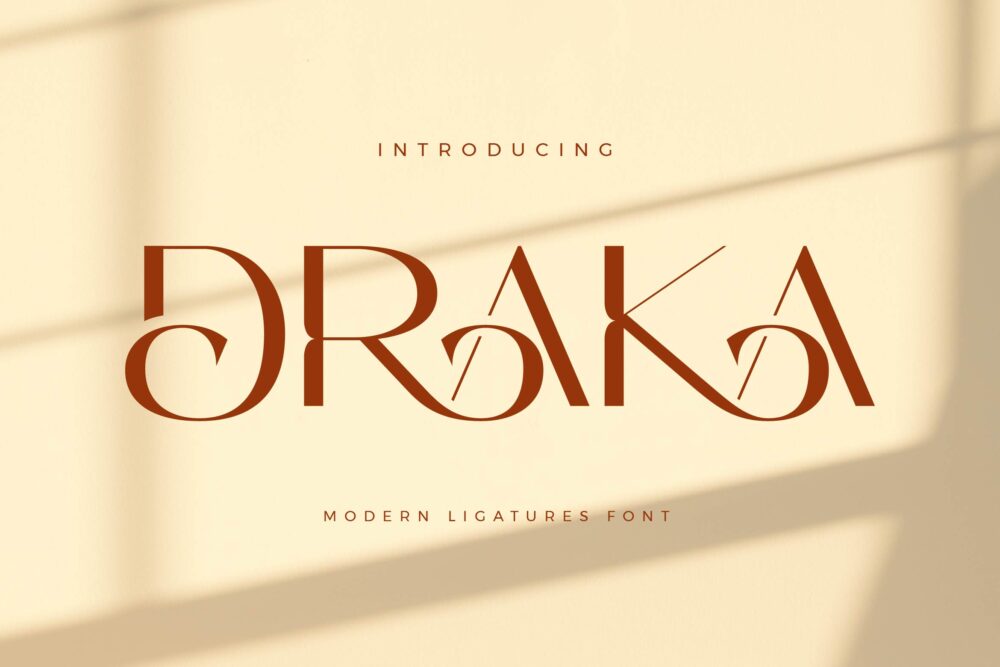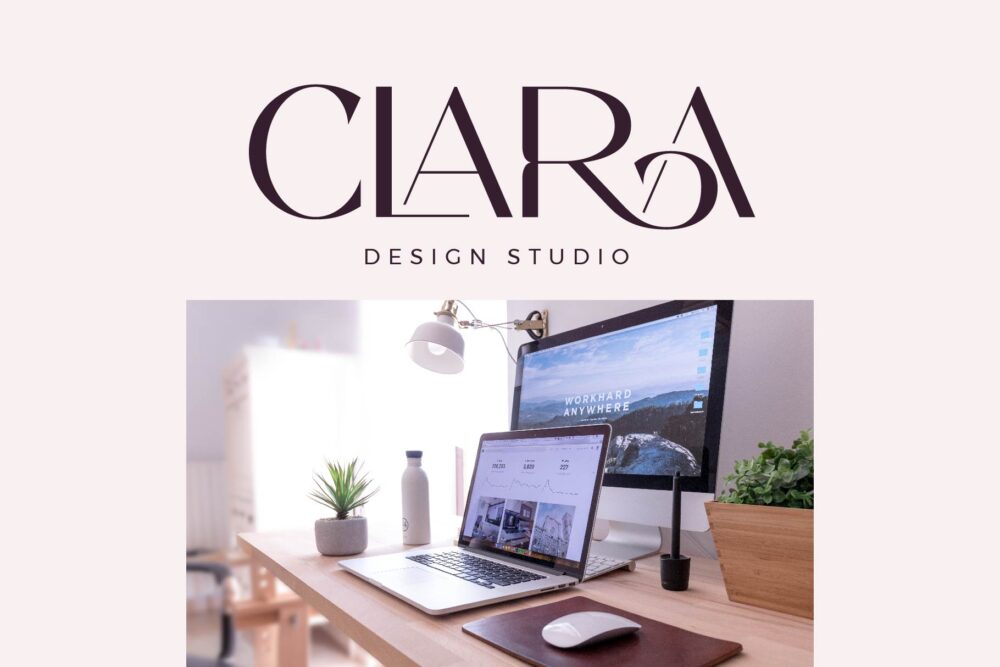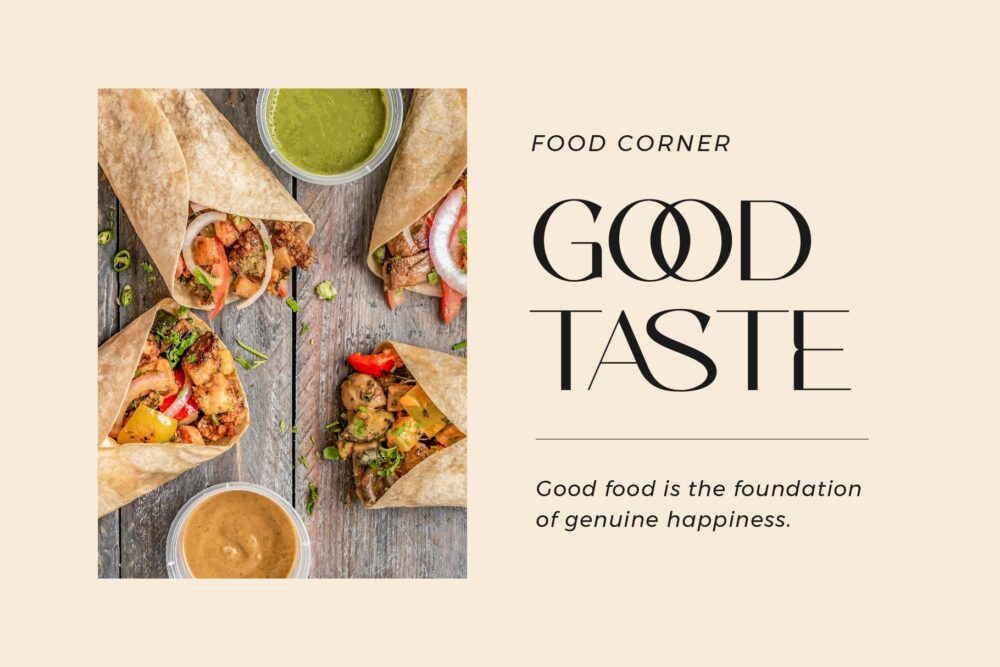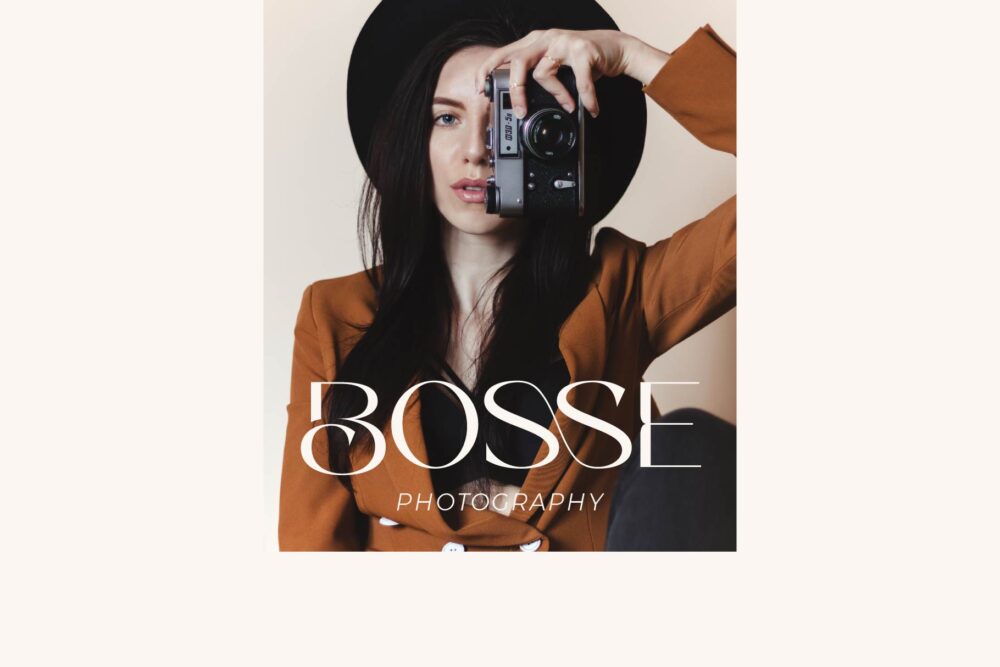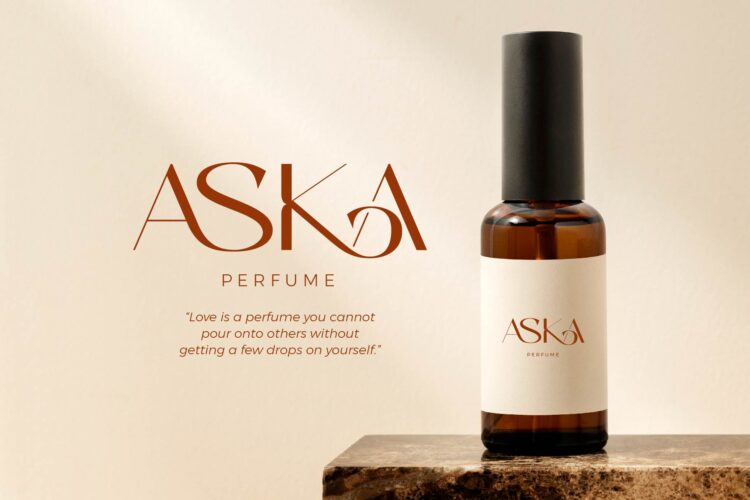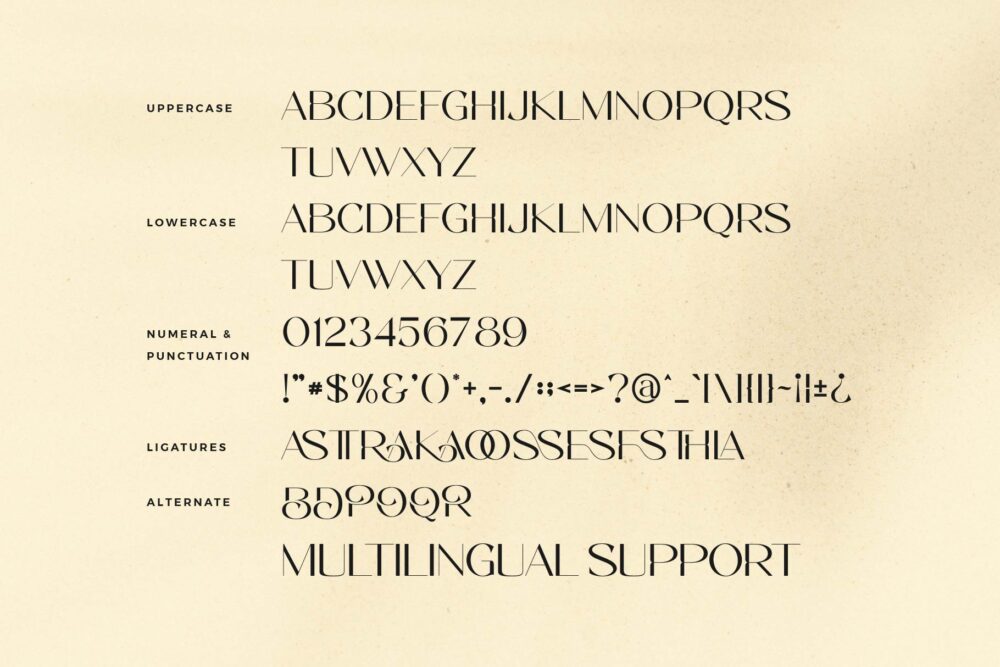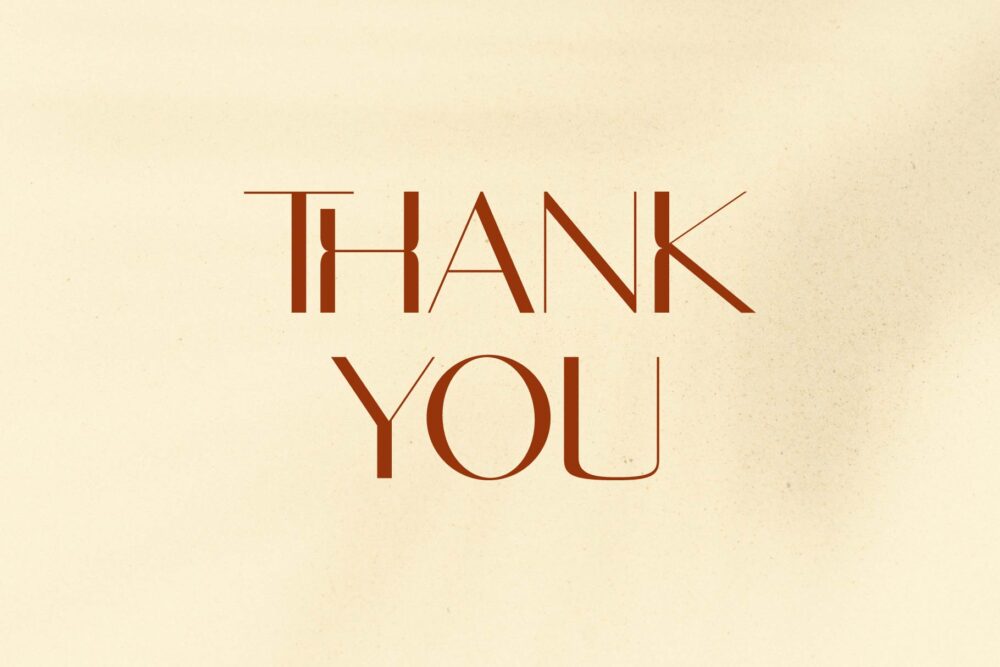
Draka
Draka Sans Font Typeface inspired by the famous minimalist logo perfect for the purposes of designing templates, brochures, videos, advertising branding, logos, invitation, layout design, elegant crafting, beauty design and other.
Draka – Modern Sans Serif Font